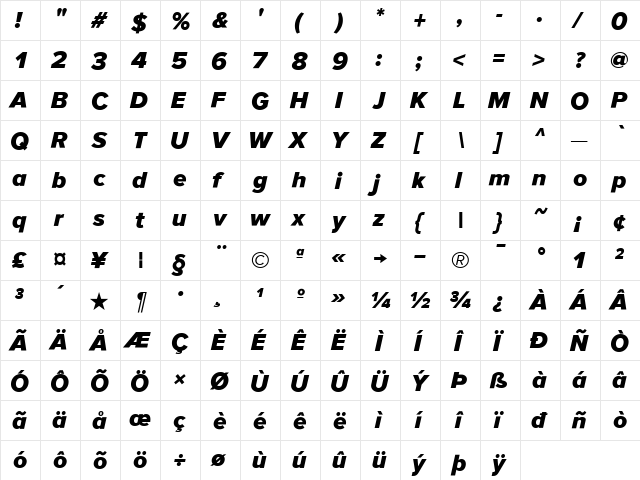
ProximaSansBlackOblique Regular
Design Context for ProximaSansBlackOblique Typeface
ProximaSansBlackOblique takes a measured approach to typography — its balanced proportions and neutral character make it a reliable workhorse for both digital and print work. Its italic angle brings a sense of urgency and motion to the letterforms.
Pro Tip: Use ProximaSansBlackOblique for emphasis, pull quotes, and subheadings where its slanted energy can add rhythm to the layout.